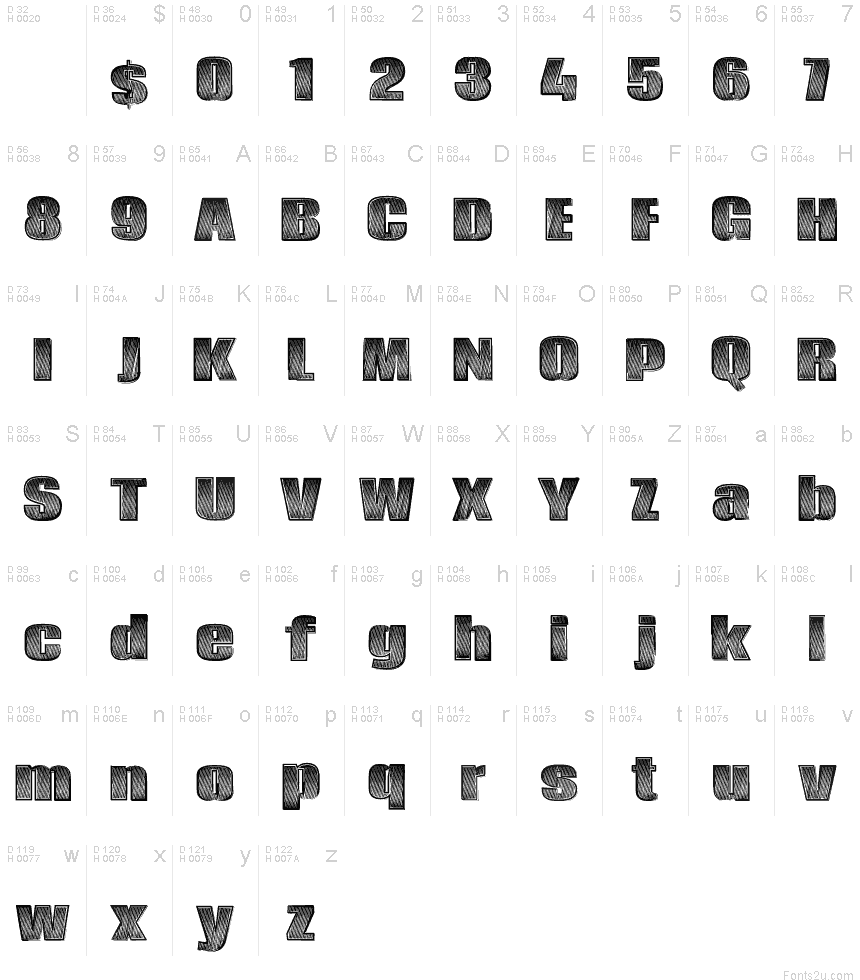
Energy Drink by Xerographer Fonts is a free eroded display font with broad, forceful letters and a rough industrial finish. Dense diagonal scoring runs through the faces, and heavier abrasion gathers near the lower edges, giving the lettering the look of worn screen printing.
It can turn a beverage label into both a logo and a distressed packaging graphic. The same scraped texture suits action-sports posters, music merchandise, and arcade game graphics. Packaging is its clearest role.